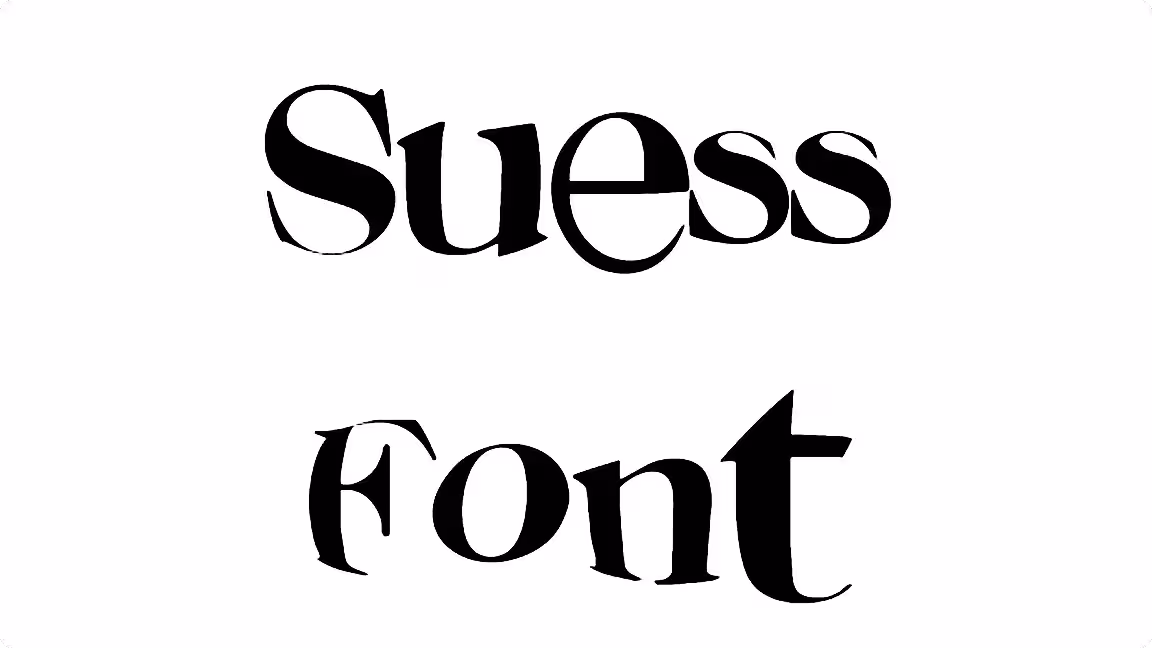
Suess
Suess is a fancy font (1998). Bold and full of character, it's built to stand out rather than blend in. You can download it for free and test it with your own words in the preview above.
You get every letter from A to Z in both cases and all the numbers from 0 to 9, which means Suess can handle full sentences, dates and prices. Everyday marks like &, !, ? and @ are there too. Thanks to its accented letters, it also works for Spanish, French, German, Portuguese and Italian, not just English.
Designers usually reach for fonts like Suess when they're making posters, logos and eye-catching headlines. Use it for one standout word or headline and let simpler fonts handle the rest.
Yes. Suess includes the accented letters needed for Spanish, French, German, Portuguese and Italian, so it works for more than just English.